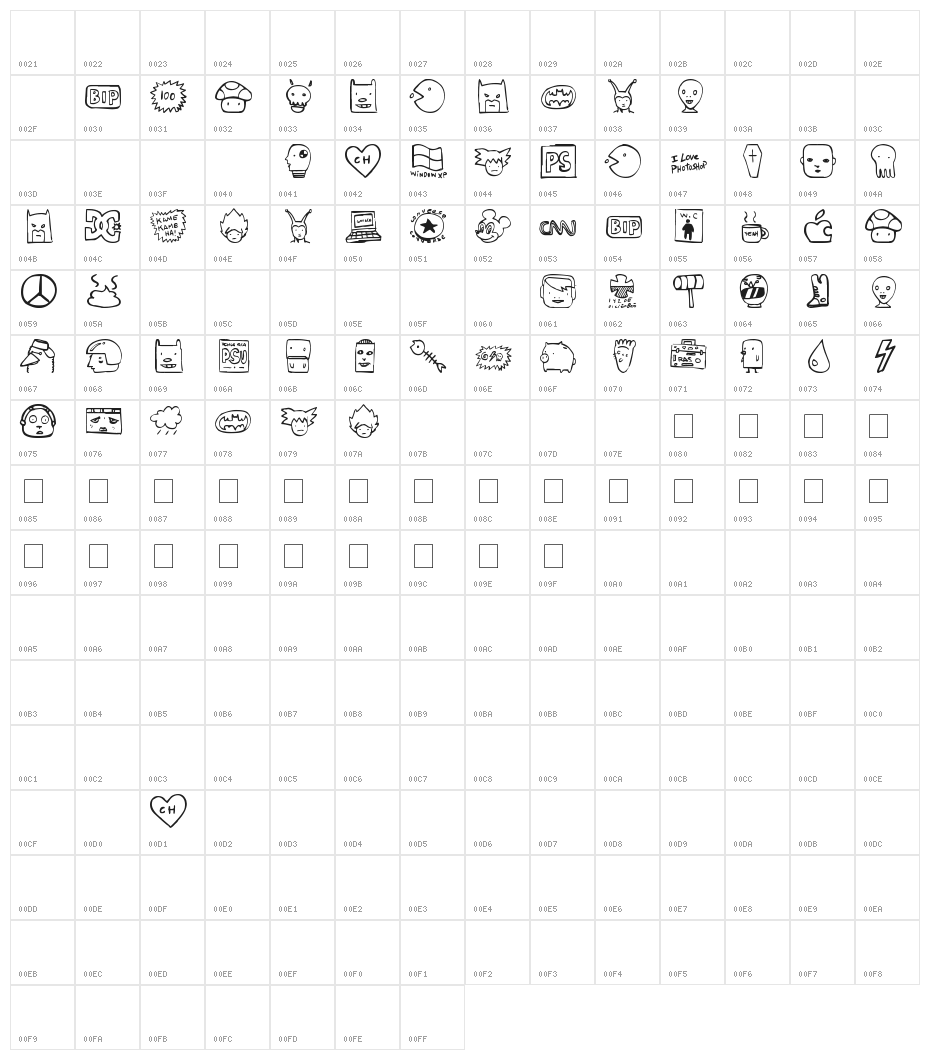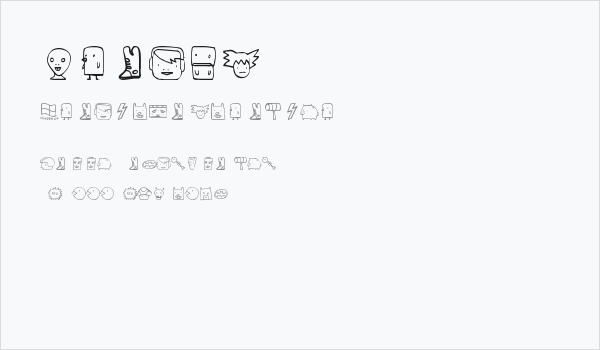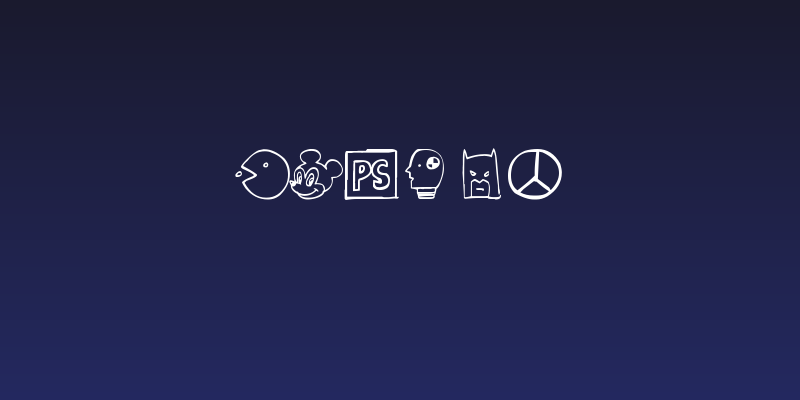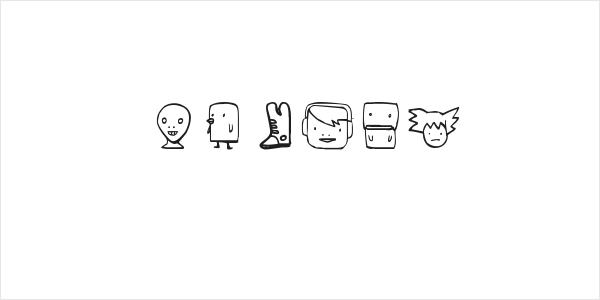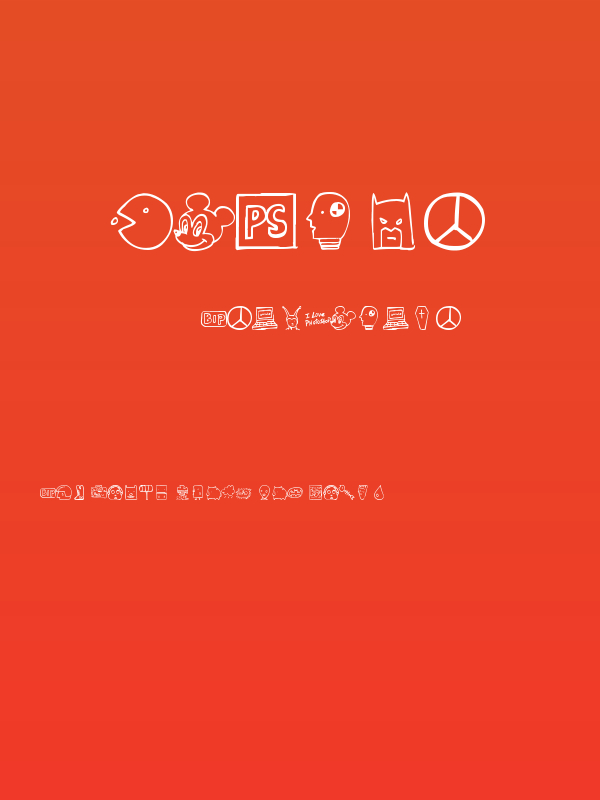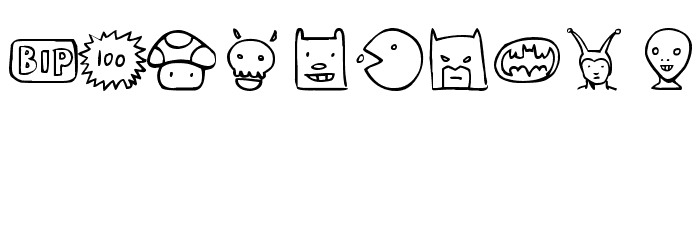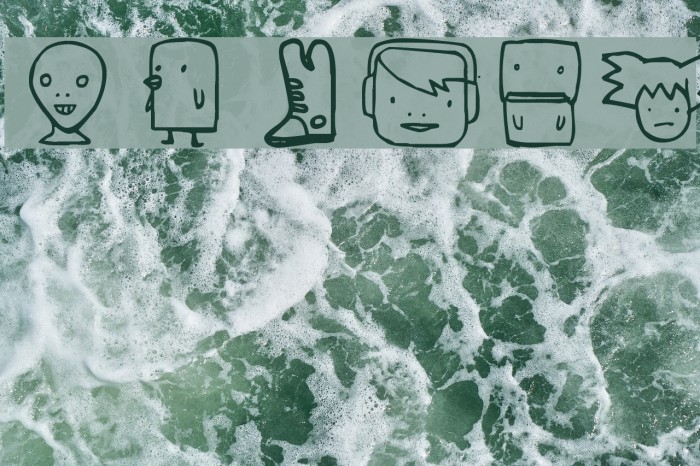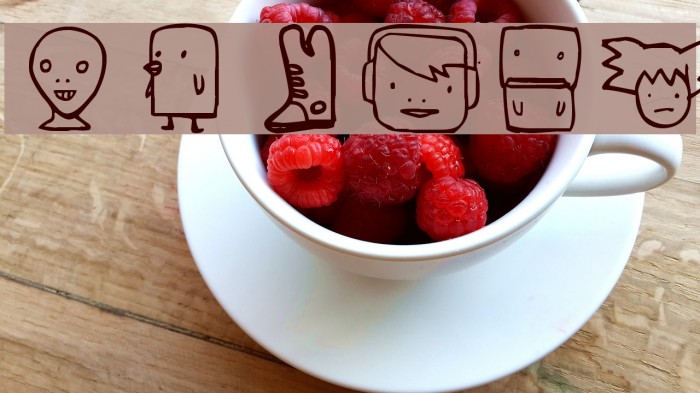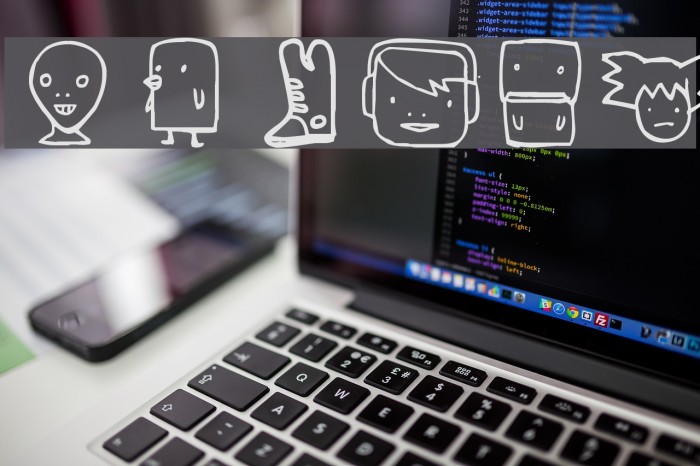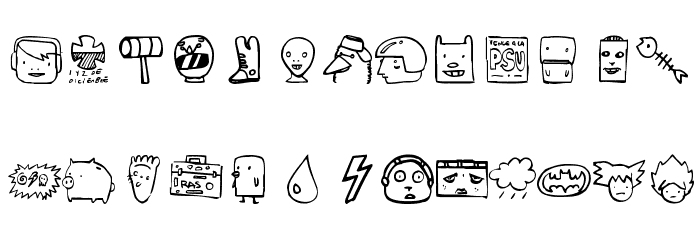
freaky Font
freaky Description
| Overall Style | Whimsical, Playful, Cartoonish |
| Use Case | Decorative elements, icons, informal designs, comics. |
| Proposed Projects | Children's books, comic strips, party invitations, playful branding, stickers, and creative posters. |